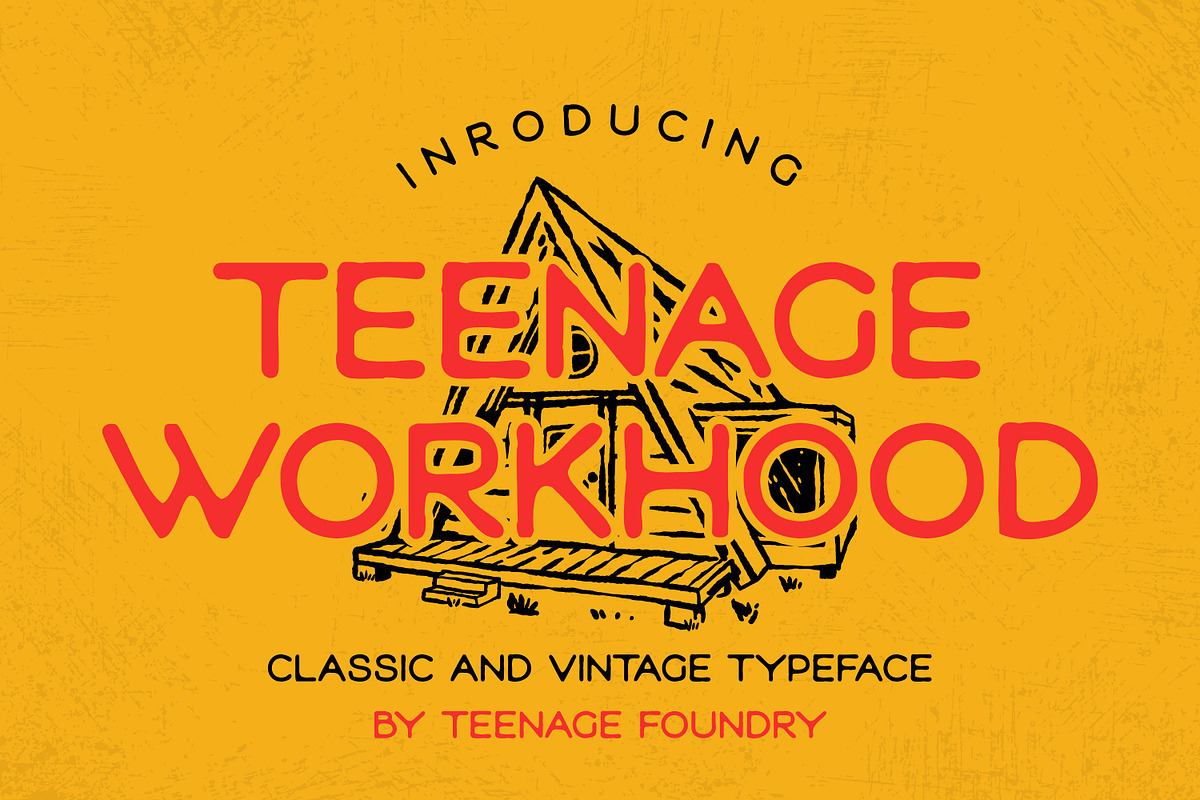
Bring youthful energy and street-style flair to your designs with Teenage Workhood Font Free Download. This bold, edgy typeface captures the essence of rebellious spirit and creative freedom, making it perfect for music posters, streetwear branding, skate culture designs, and bold social media graphics.
Teenage Workhood features rough, irregular letterforms and textured strokes that give it a raw, hand-crafted feel. It includes uppercase and lowercase letters, numerals, punctuation, and special alternates—ideal for testing bold, graphic-heavy layouts.